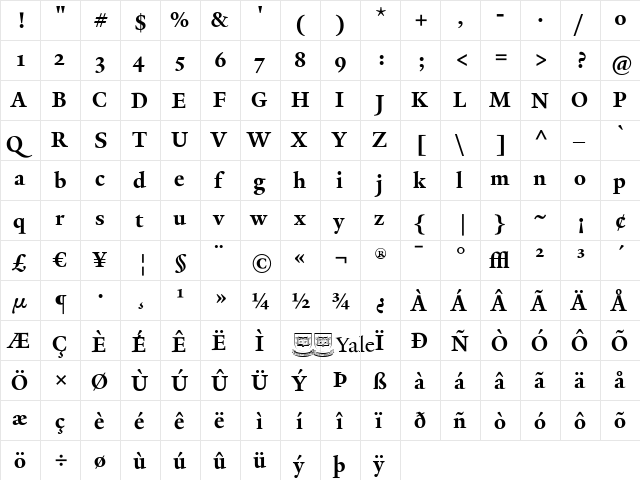
YaleDesign Bold
| Foundry | Carter & Cone Type Inc |
Design Context for YaleDesign Typeface
YaleDesign takes a measured approach to typography — its balanced proportions and neutral character make it a reliable workhorse for both digital and print work. The heavy weight commands attention and anchors typographic hierarchies.